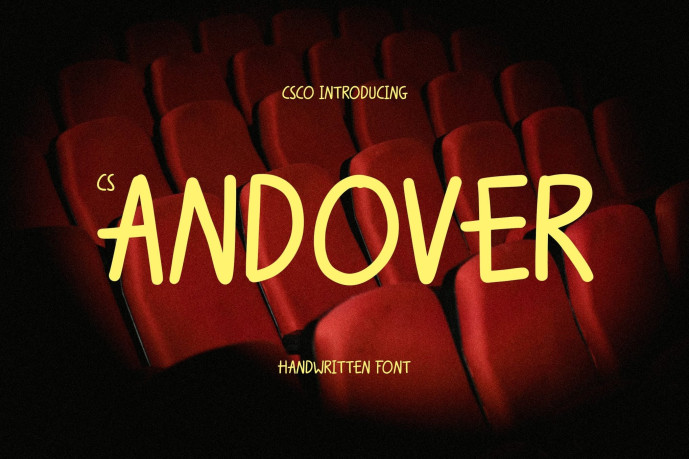
Andover – Playful Handwritten Font
Designer: craftsupplyco
CS Andover Playful Handwritten Font with Friendly Vibes This is a fun and energetic playful handwritten font designed to bring joy to every design. Its rounded strokes and approachable shapes create a friendly, casual look that instantly feels welcoming. Each letter carries a lively personality, making it perfect for projects that want to appear youthful, vibrant, and engaging.
Rounded Strokes for Warmth and Approachability The carefully crafted rounded sans serif forms of this font give the font a soft, inviting character. Its organic, handwritten flow combines charm with readability, allowing your message to shine without losing style. The playful shapes make it stand out in any creative context while maintaining clarity.